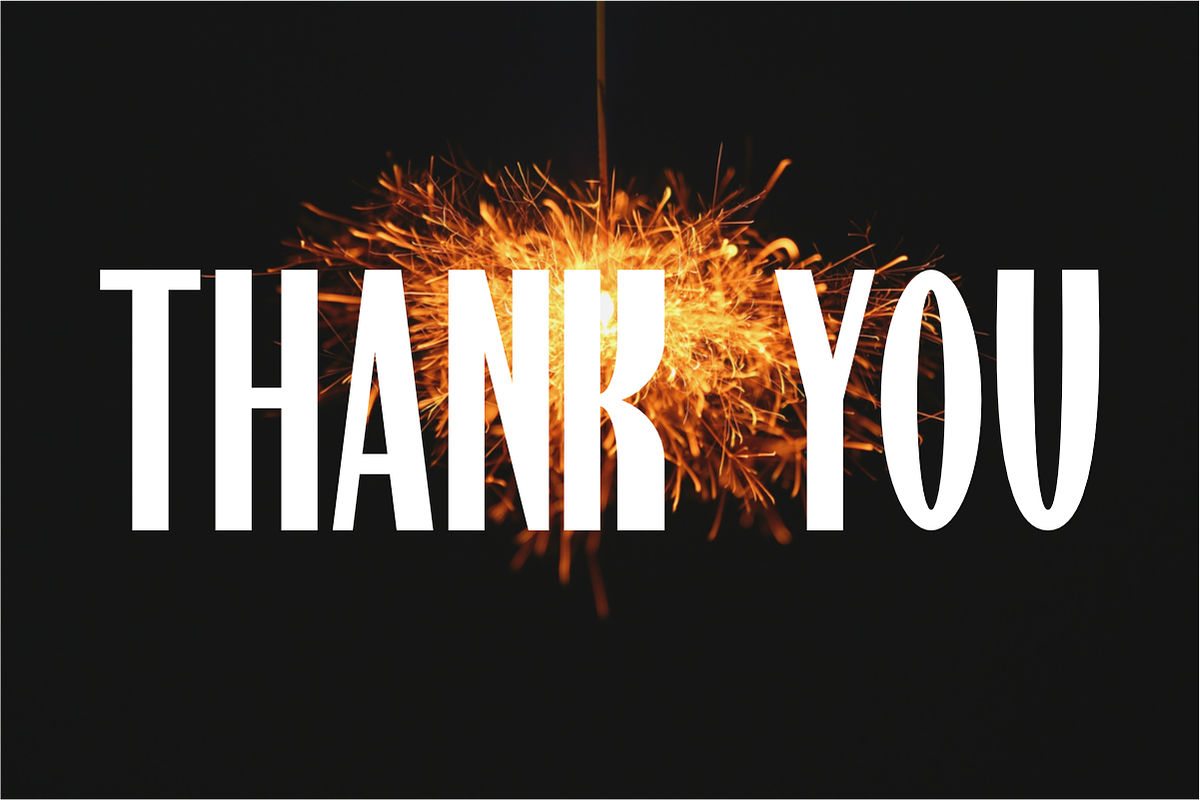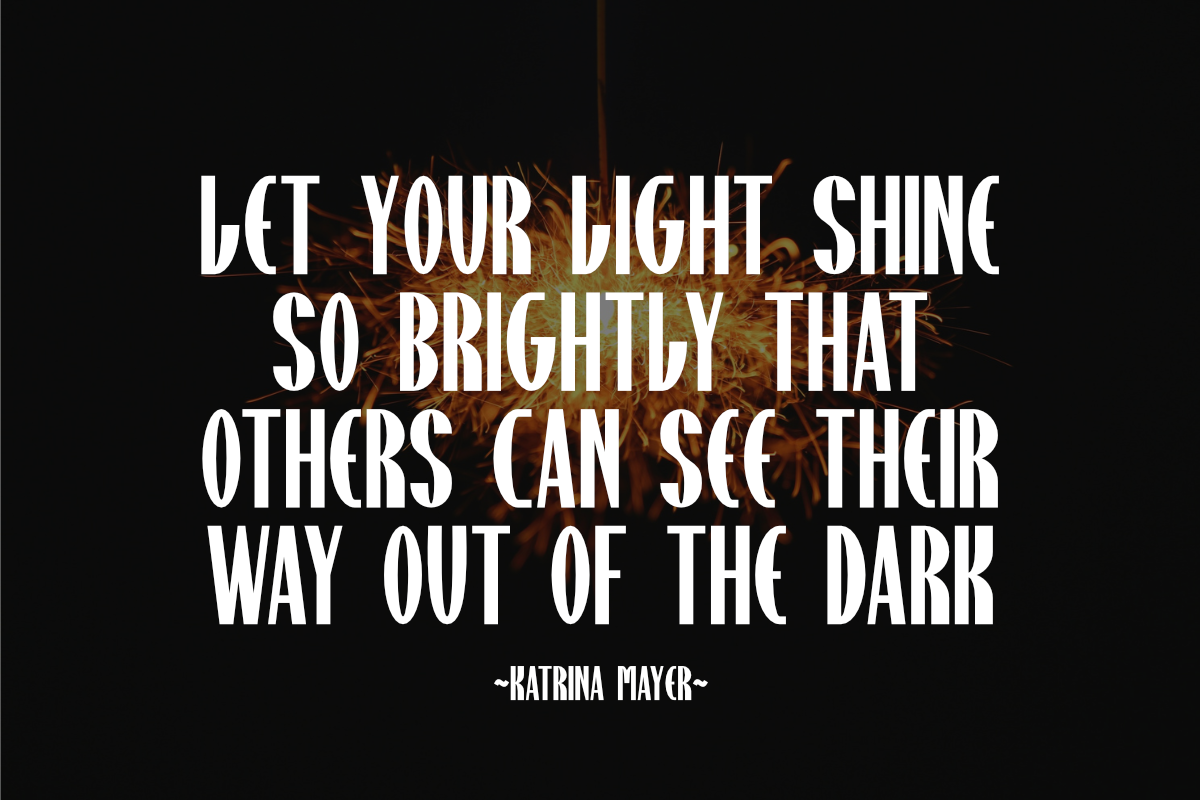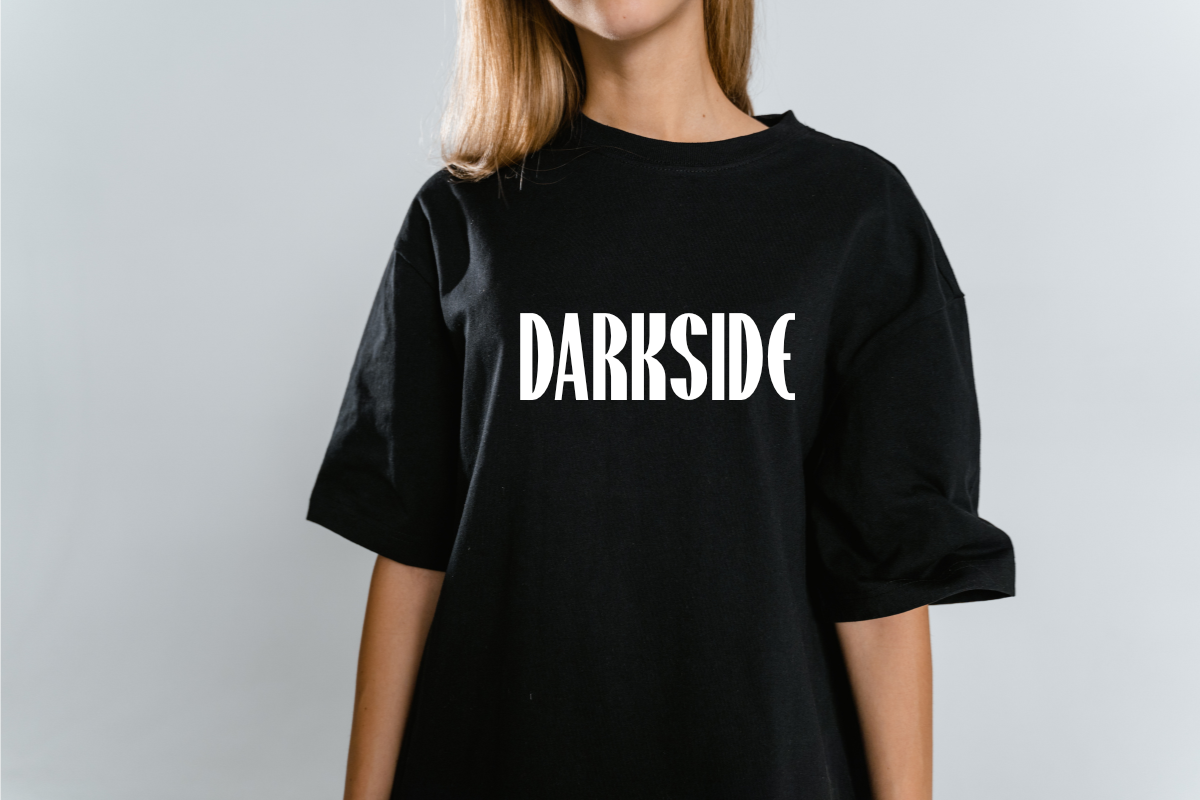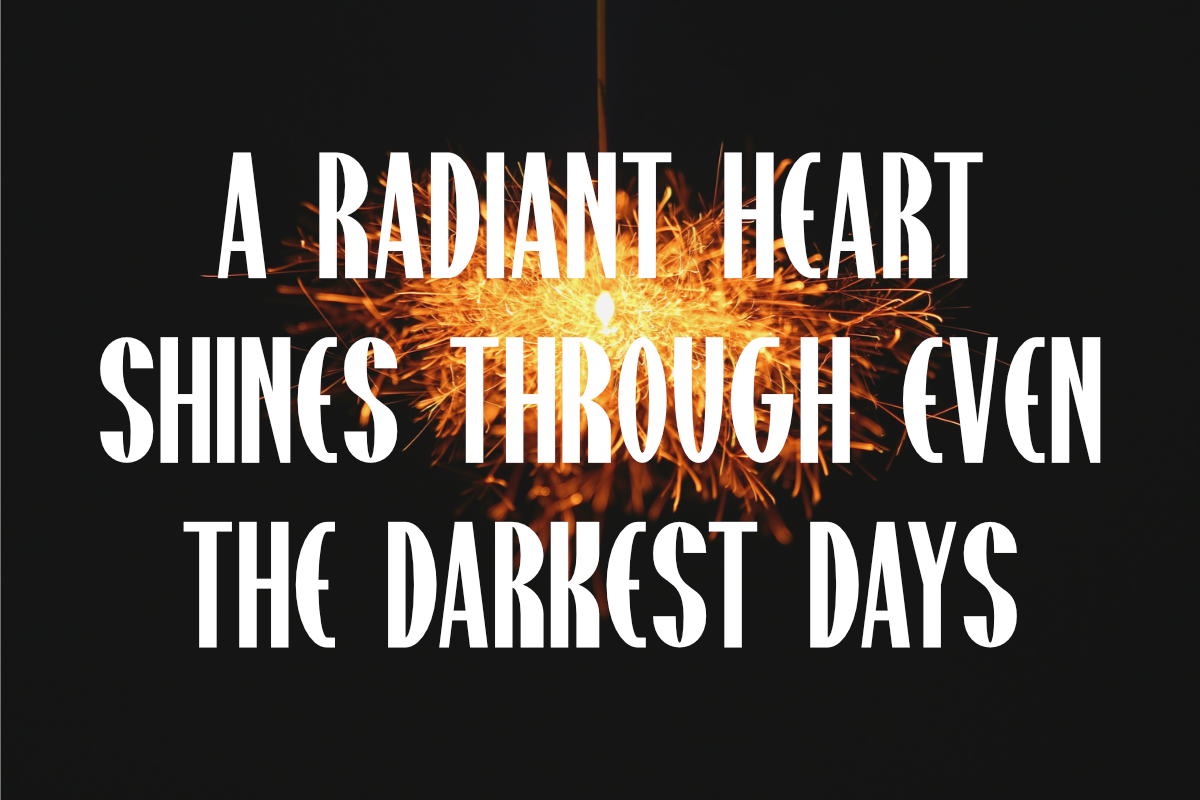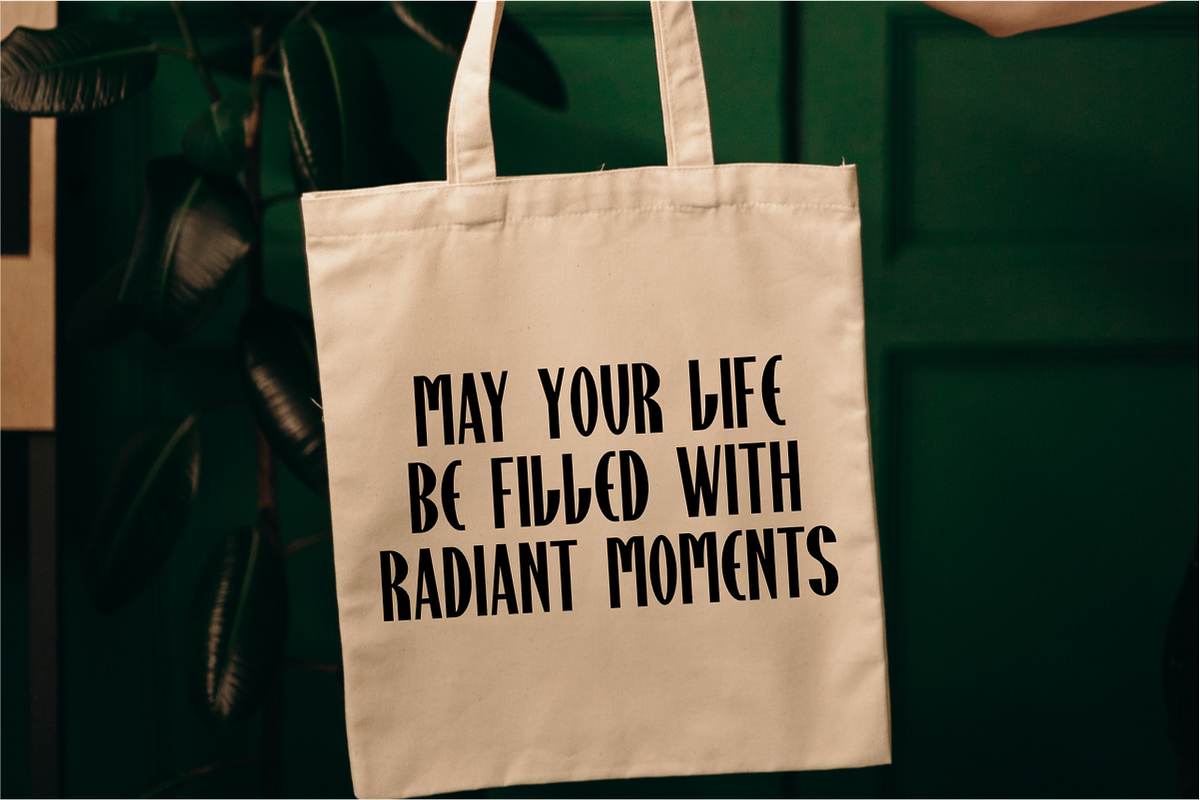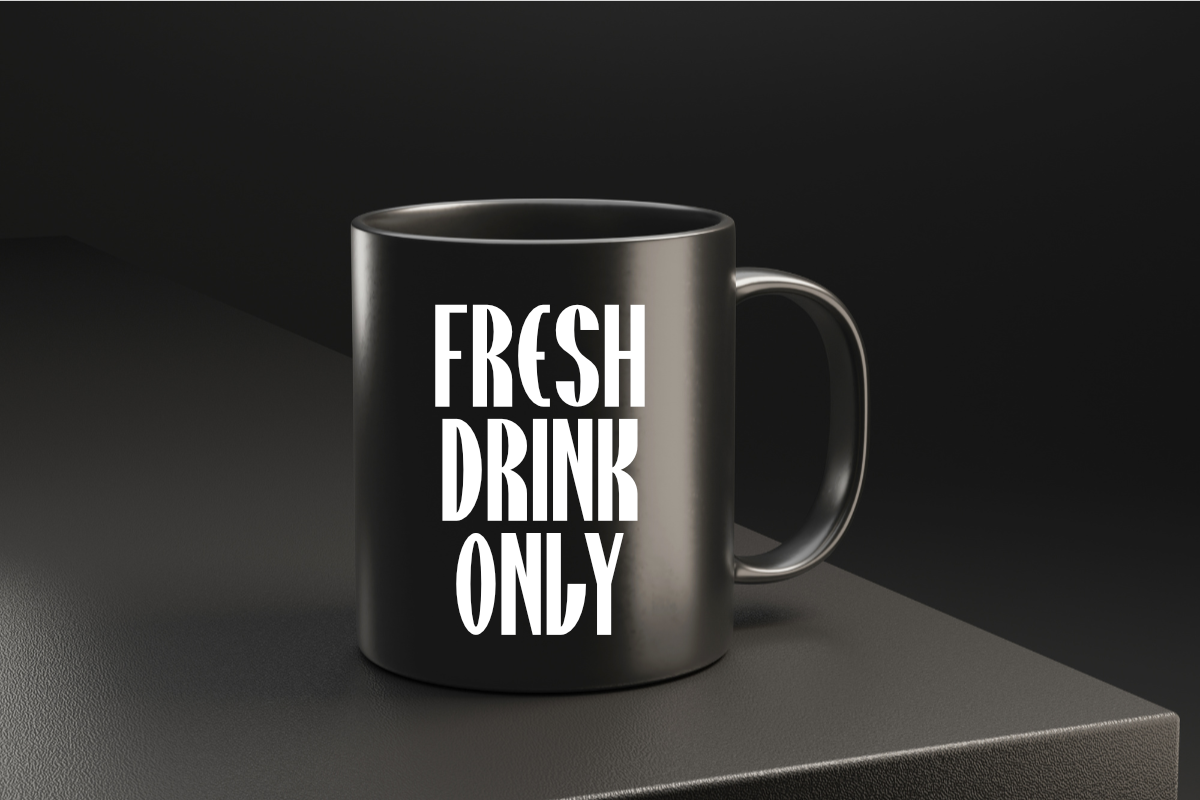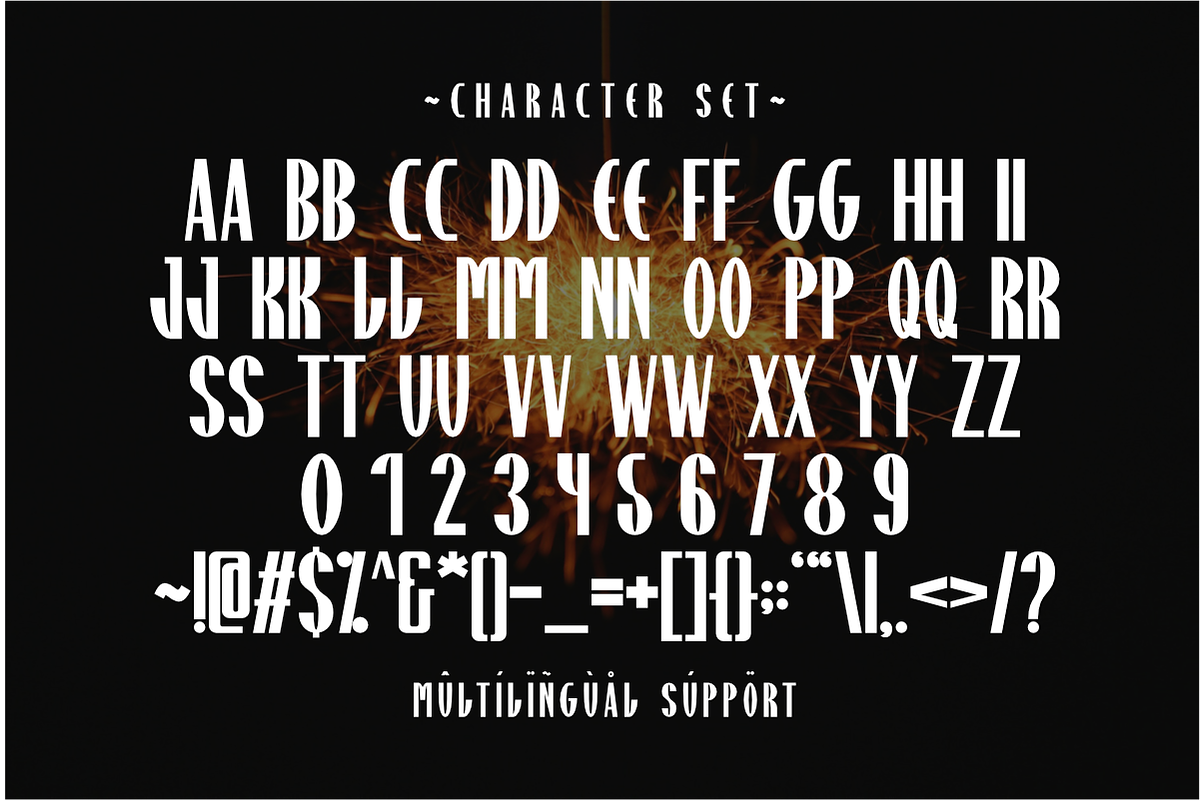
Radiant - Condensed Sans Serif
Radiant is a condensed sans serif font that exudes modern elegance and clean sophistication. Its tall, narrow letterform create a striking vertical presence, making it ideal for design that require a sense of height and impact while maintaining a streamlined aesthetic. This typeface perfect for headlines, logos, apparel design and editorial design.